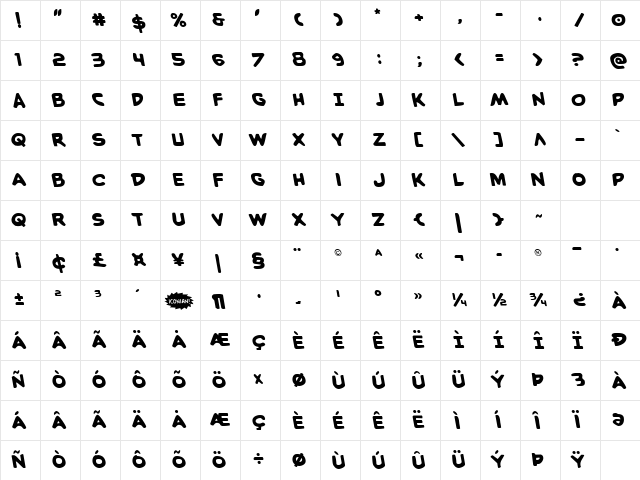
Complete Caped Crusader Semi-Leftalic Regular glyph index. Displaying only characters natively supported by Caped Crusader Semi-Leftalic Regular font.
Caped Crusader Semi-Leftalic is a composed and adaptable typeface that performs quietly and consistently across a wide range of design contexts. The slanted form adds forward momentum and visual energy.